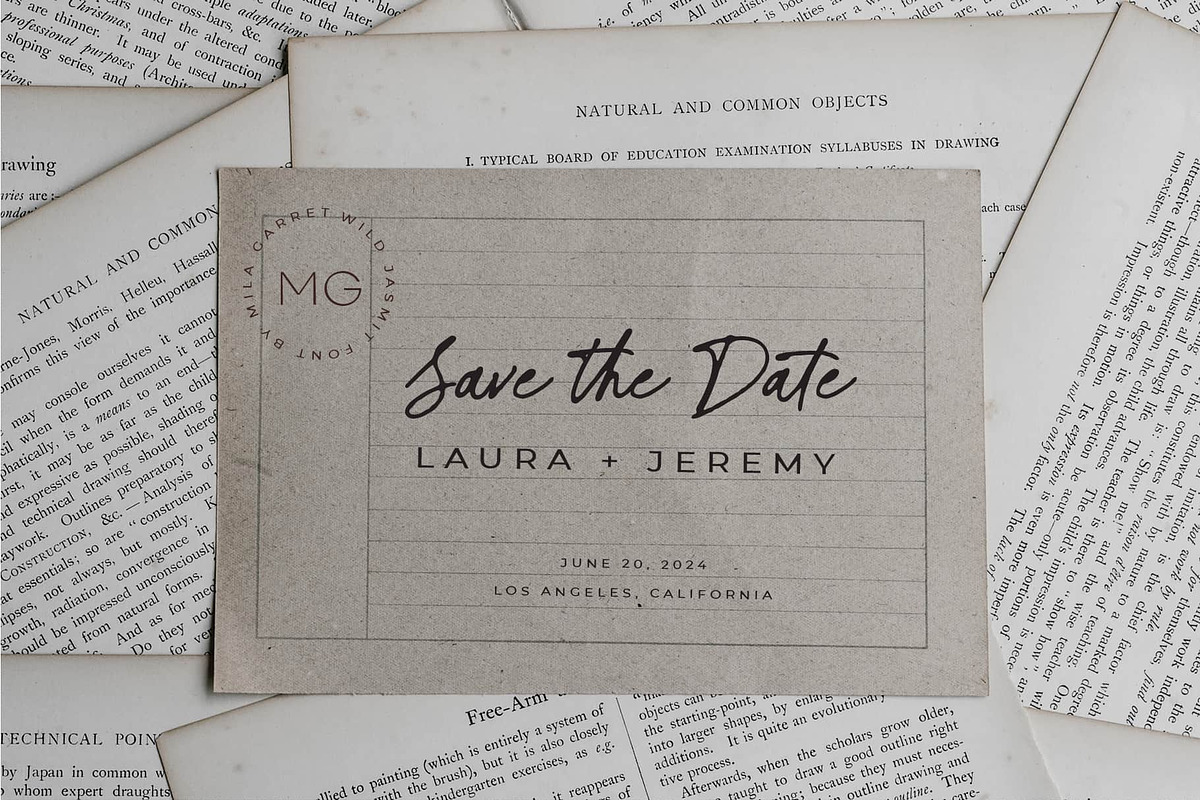
Wild Jasmine is an inky signature script font with a natural, handwritten feel and subtly rough edges. Designed to capture the essence of authentic handwriting, it includes over 60 ligatures for seamless, realistic letter connections.
Perfect for minimalist logos, editorial design, branding, Instagram quotes, wedding stationery, packaging, websites, and more, Wild Jasmine brings effortless elegance to any project.
- Full set of standard alphabet & punctuation
- 66 handwritten ligatures for a natural flow